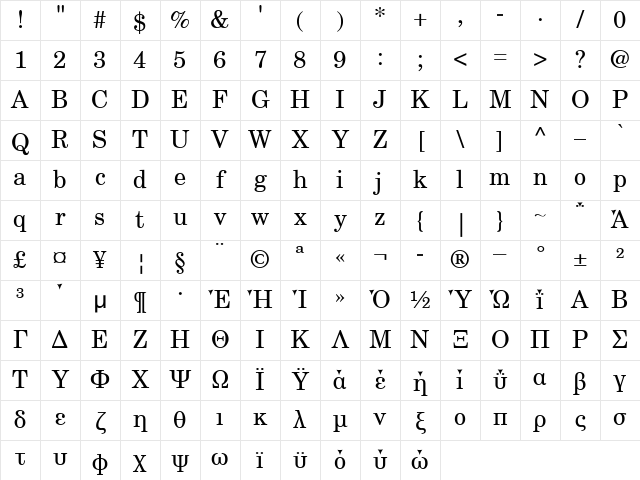
NewCenturySchlbkGreek Up Regular
NewCenturySchlbkGreek Up Family
Design Context for NewCenturySchlbkGreek Up
NewCenturySchlbkGreek Up is a composed and adaptable typeface that performs quietly and consistently across a wide range of design contexts.